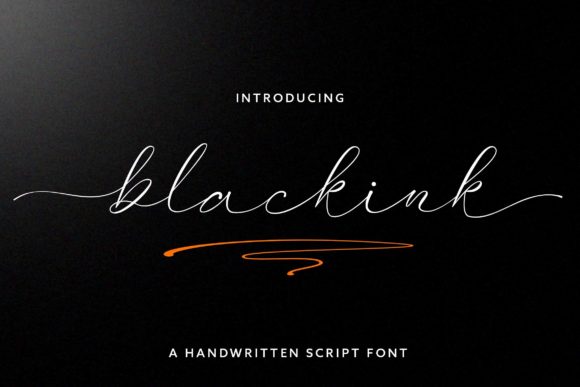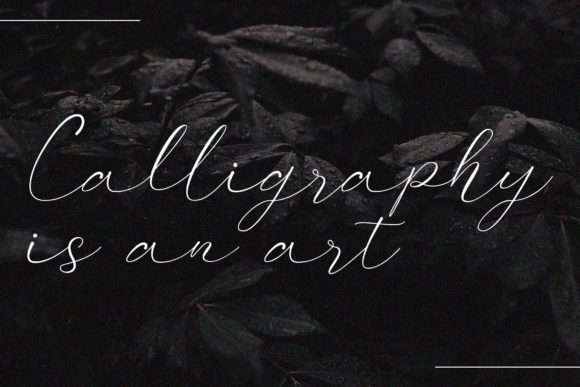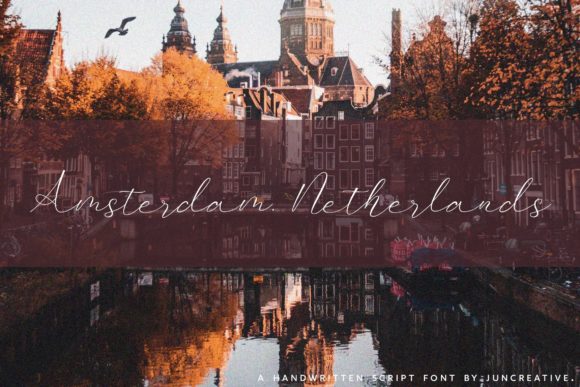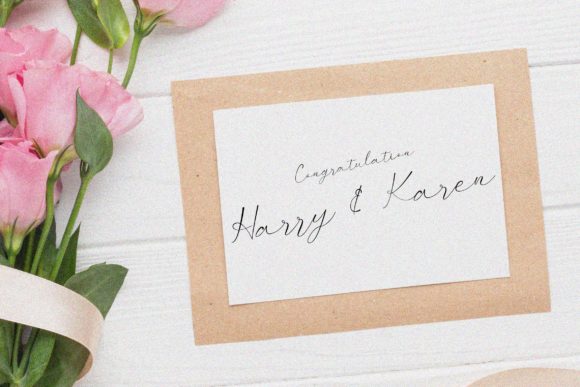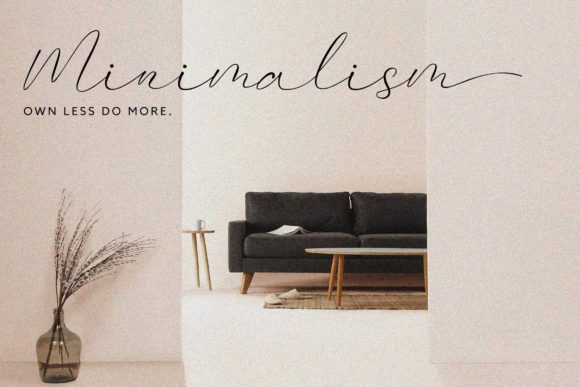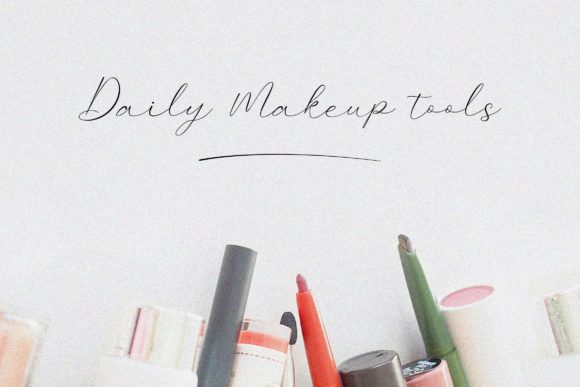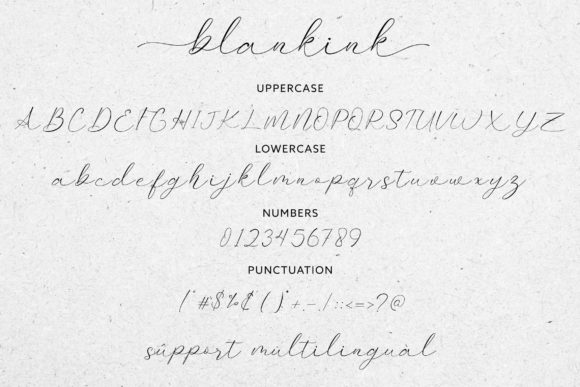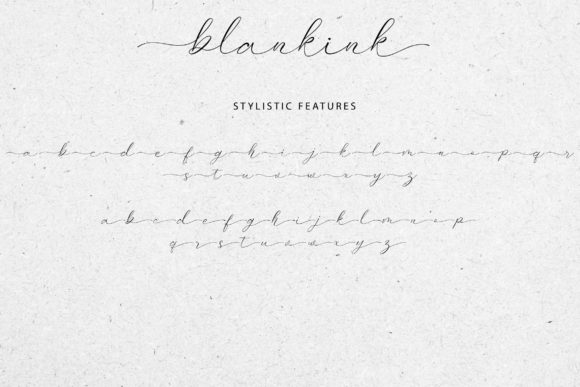
Blackink Font
About Blackink Font
Blackink is a delicate and elegant handwritten font. Its distinct and well balanced letters make this font a masterpiece. This font is PUA encoded which means you can access all of the glyphs and swashes with ease!